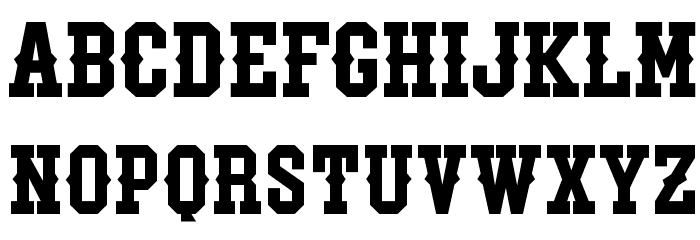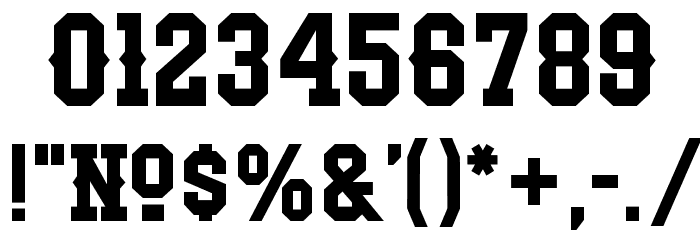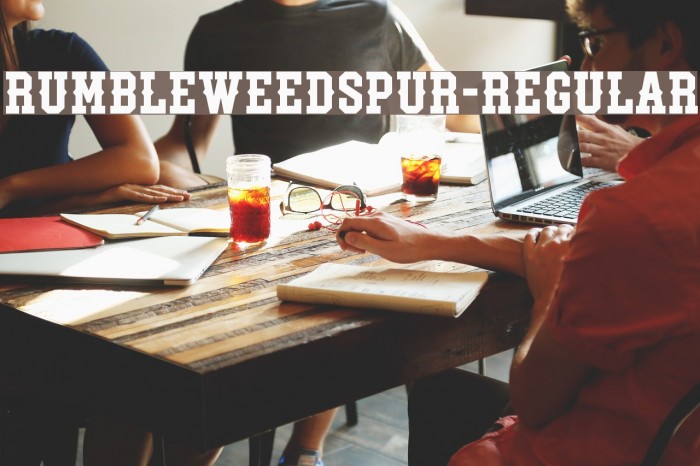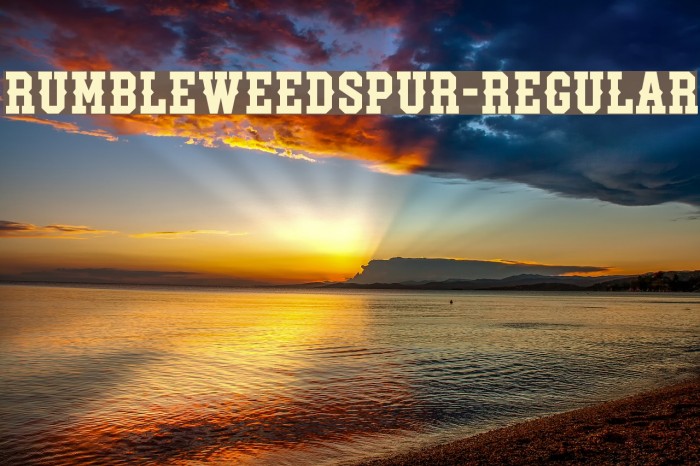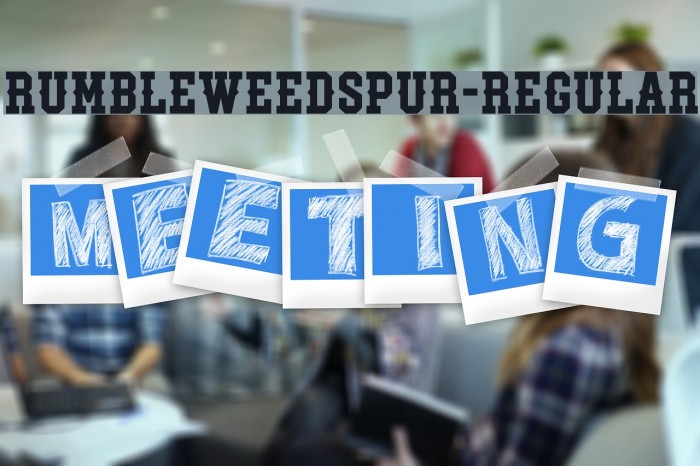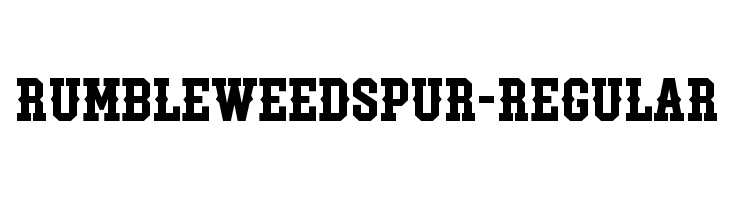
RumbleweedSpur-Regular Font
This font features a bold, robust design with a distinctly Western flair. The characters are blocky and heavily stylized, reminiscent of old-style woodcut typefaces used in vintage posters and signage. The uppercase letters are particularly striking, with thick strokes and angular serifs that give them a strong, commanding presence. The numerals and special characters maintain this bold aesthetic, ensuring consistency across all glyphs. This font's unique style makes it ideal for projects that require a touch of ruggedness and nostalgia.
A bold, Western-style font with blocky, angular serifs and a vintage feel.
- Proposed Projects: Ideal for Western-themed posters, vintage signage, branding for rustic or outdoor products, and event invitations.
- Overall Style: Vintage